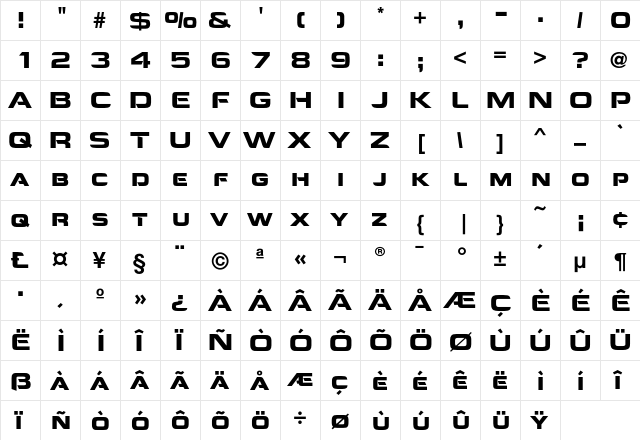
Corporate-Normal Regular
Design Context for Corporate-Normal Typeface
Corporate-Normal takes a measured approach to typography — its balanced proportions and neutral character make it a reliable workhorse for both digital and print work.